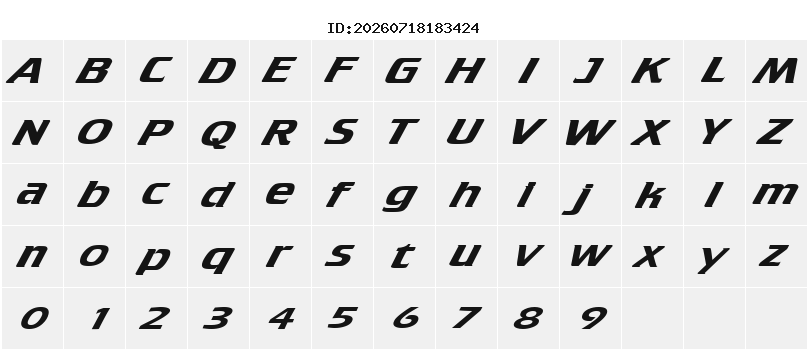
CruiserExtended Preview
• Font Name: CruiserExtended
• Full Font Name: CruiserExtended Italic
About CruiserExtended.ttf
CruiserExtended.ttf is a modern, elegant sans-serif font designed for ultimate readability and visual harmony. Perfect for branding, headlines, web design, and print materials.